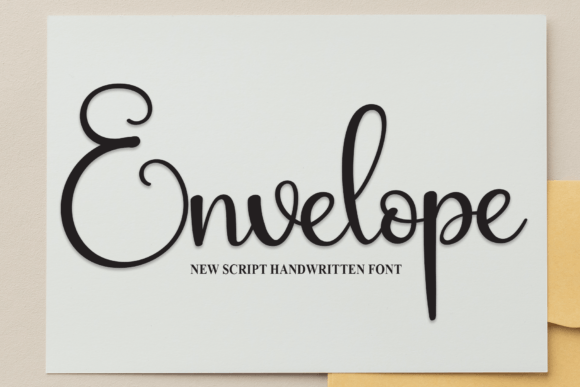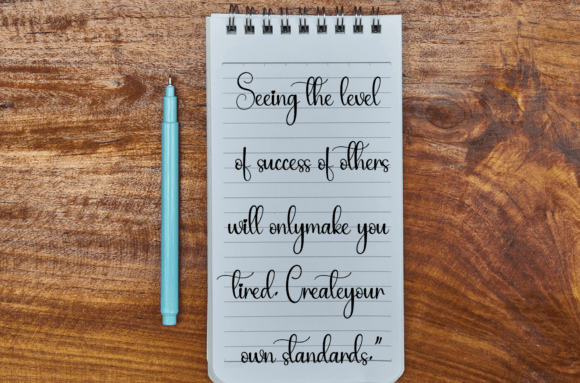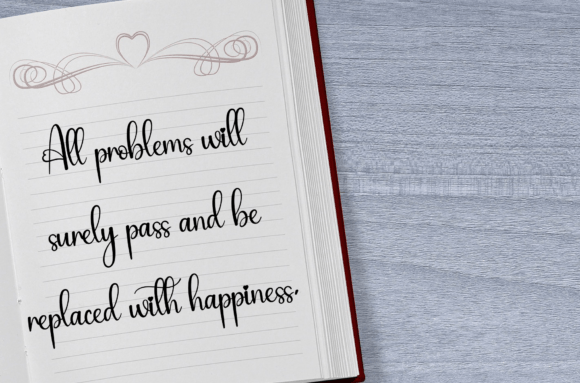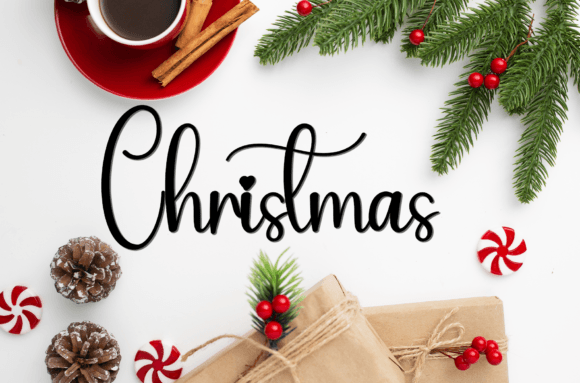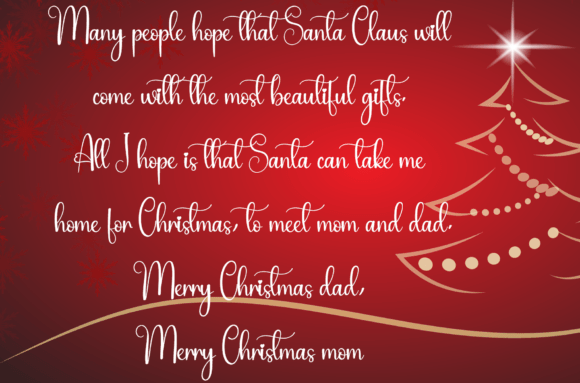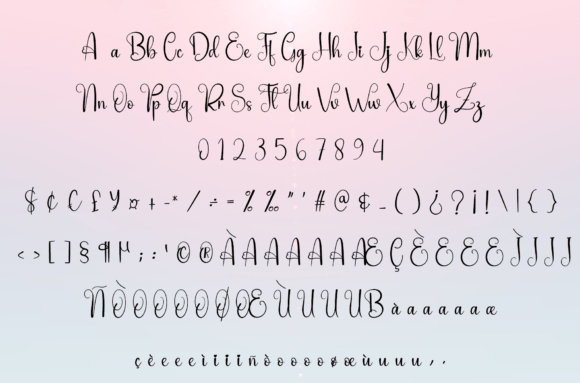
Envelope Font
About Envelope Font
Envelope font is a beautifully crafted handwritten typeface that perfectly blends charm with elegance. Designed to bring a personal and sophisticated touch to your projects, this font is ideal for anyone seeking a refined handwritten style. Its graceful strokes and balanced letterforms make it an excellent choice for wedding invitations, thank you cards, quotes, greeting cards, logos, business cards, and any design requiring a handwritten flair.
Elegant and Charming Design
The Envelope font boasts an elegant style inspired by classic calligraphy with a modern twist. Its smooth and flowing characters create a warm, inviting feel while maintaining clear readability. This unique balance makes it perfect for both formal and casual design projects.
Versatile Usage Across Projects
This font adapts effortlessly to a variety of creative needs. Whether you’re designing wedding stationery, personal cards, business branding, or social media graphics, Envelope font brings an authentic handwritten look that enhances the emotional connection with your audience.
Sophisticated and Personal
Envelope font’s handwritten aesthetic adds a sense of personality and intimacy to your designs. Its delicate details and natural flow ensure your projects feel thoughtful and stylish, creating a memorable impression.
Customizable Features
With access to alternate characters and ligatures, Envelope font offers flexibility for customization. This allows you to tailor your text for uniqueness, adding a bespoke touch that stands out while keeping the elegance intact.
Ideal for Creators and Designers
Envelope font is perfect for designers looking to add a timeless and graceful handwritten typeface to their toolkit. Its versatility and beauty make it suitable for a wide range of applications, from professional branding to personal celebrations.
Envelope font is a charming and elegant handwritten typeface designed to elevate any creative project. Its versatility, clear readability, and warm personality make it a valuable asset for creating stunning and heartfelt designs. Add Envelope font to your collection and bring elegance to your next project.